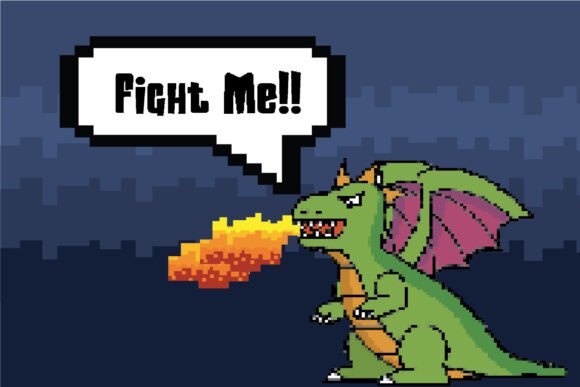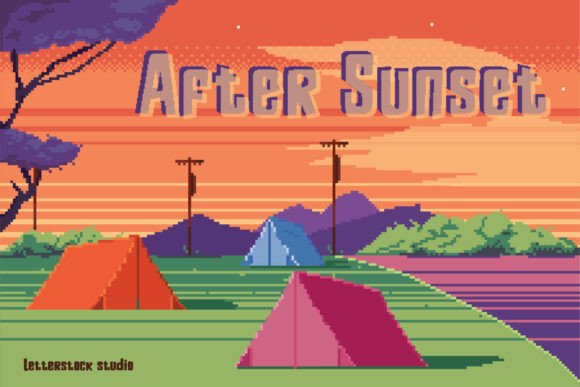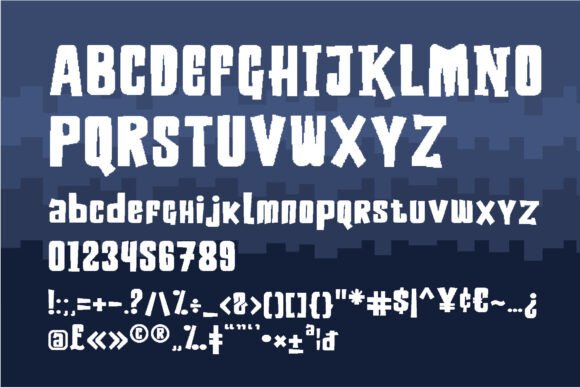
Introduction to Pixelost Font
Have you ever spent hours pouring over a design, only to have it ruined by the wrong font? We’ve all been there. But what if I told you that there’s a font that can transport you back to the nostalgic world of retro games and industrial design, while still maintaining a sleek and modern aesthetic? Enter the Pixelost Font, a high-quality sans-serif font that’s perfect for any creative project.
Whether you’re working on a retro-style logo, designing a magazine, or creating a product label, the Pixelost Font is a valuable resource for designers. With its transparent background and free download option, it’s an easy and accessible design tool that can elevate your creative project to the next level. In this article, we’ll dive deeper into the world of the Pixelost Font and explore its many uses and benefits.
Key Features of Pixelost Font
- High-quality design for creative projects: The Pixelost Font is designed to provide a unique and visually appealing look for various creative projects.
- Transparent background: The font’s transparent background allows for seamless integration with other design elements and backgrounds.
- High-resolution support: The font is designed to support high resolutions, making it suitable for large-scale designs and prints.
- Unique pixelated design: The Pixelost Font features a distinctive pixelated design, adding a retro touch to any creative project.
Honest Review: Pixelost Font
I recently had the chance to work with the Pixelost Font, and I have to say, it’s a solid addition to any designer’s toolkit. This high-quality font is perfect for any creative project that needs a unique touch.
One of the standout features of the Pixelost Font is its wide range of characters and symbols, making it an excellent choice for designers working on complex designs that require a lot of detail.
- ✨ Wide range of characters and symbols
- ✨ Transparent background option for easy customization
- ⚠️ Limited support for certain languages
- ⚠️ May not be suitable for projects requiring extremely large font sizes
Overall, the Pixelost Font is a great resource for designers looking for a high-quality, unique font to elevate their creative project. With its wide range of characters and transparent background option, it’s a versatile choice that’s sure to impress. Just be aware of its limitations, and you’ll be well on your way to creating amazing designs.
The Pixelost Font is ideal for use in logos, branding materials, and other design projects that require a unique and creative touch. It’s also great for use in digital art, graphics, and other design elements.
Tips for Getting the Most Out of Pixelost Font
To get the most out of the Pixelost Font, experiment with different font sizes, colors, and combinations to create unique and eye-catching designs. You can also use the font in conjunction with other design elements, such as graphics and images, to create a cohesive and high-quality design.